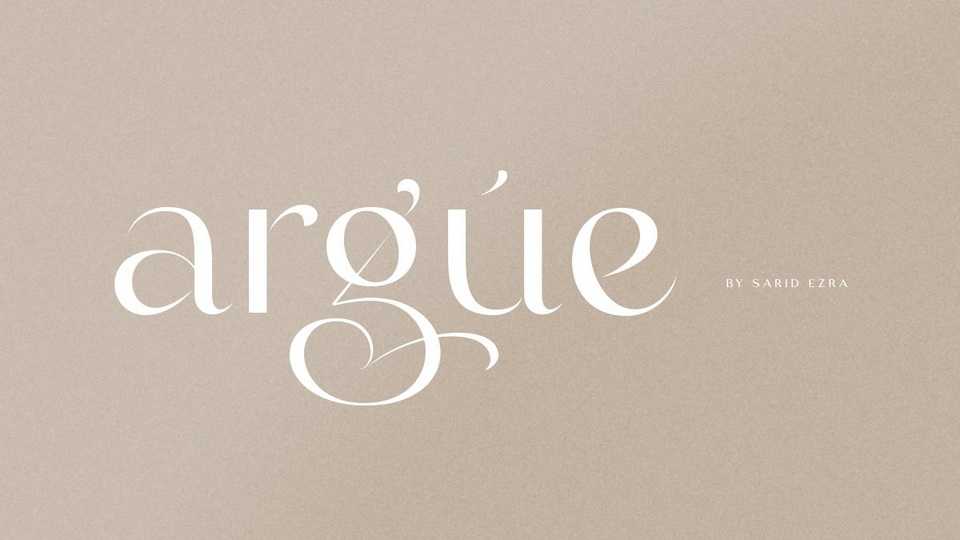
Download Argue font, an elegant and modern sans serif typeface with a bunch of features that will make your presentation or logo more stunning and stand out.